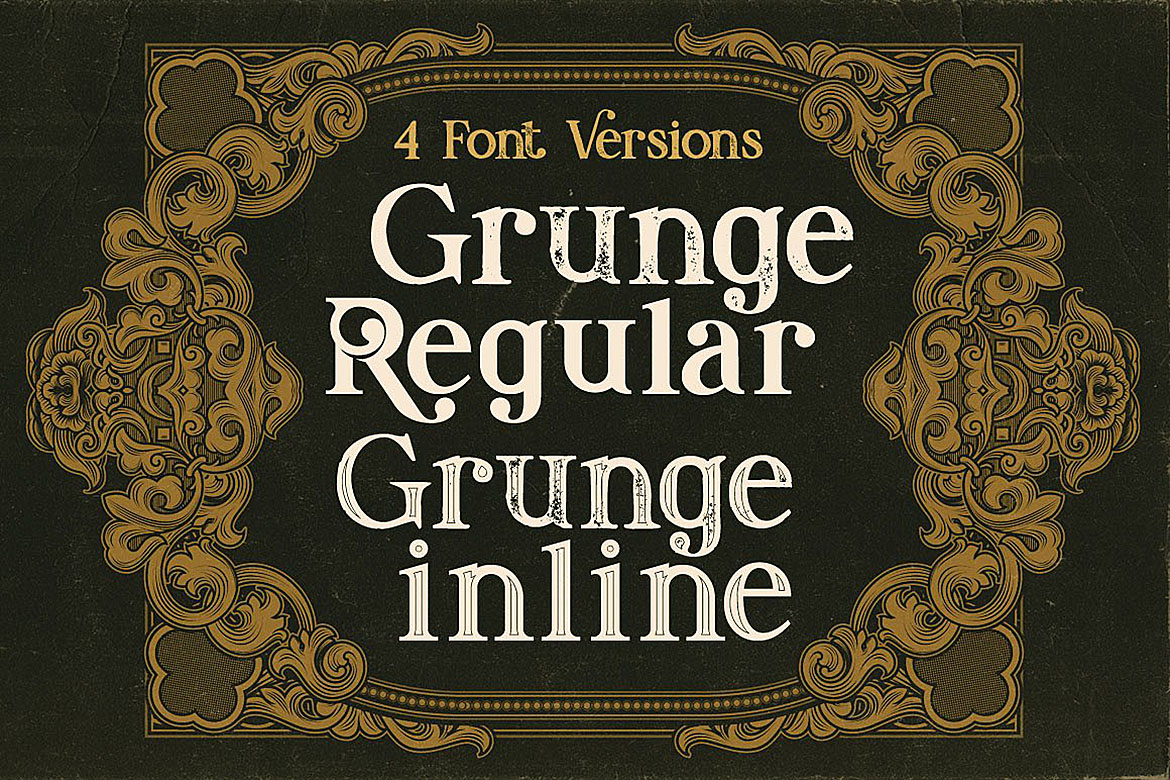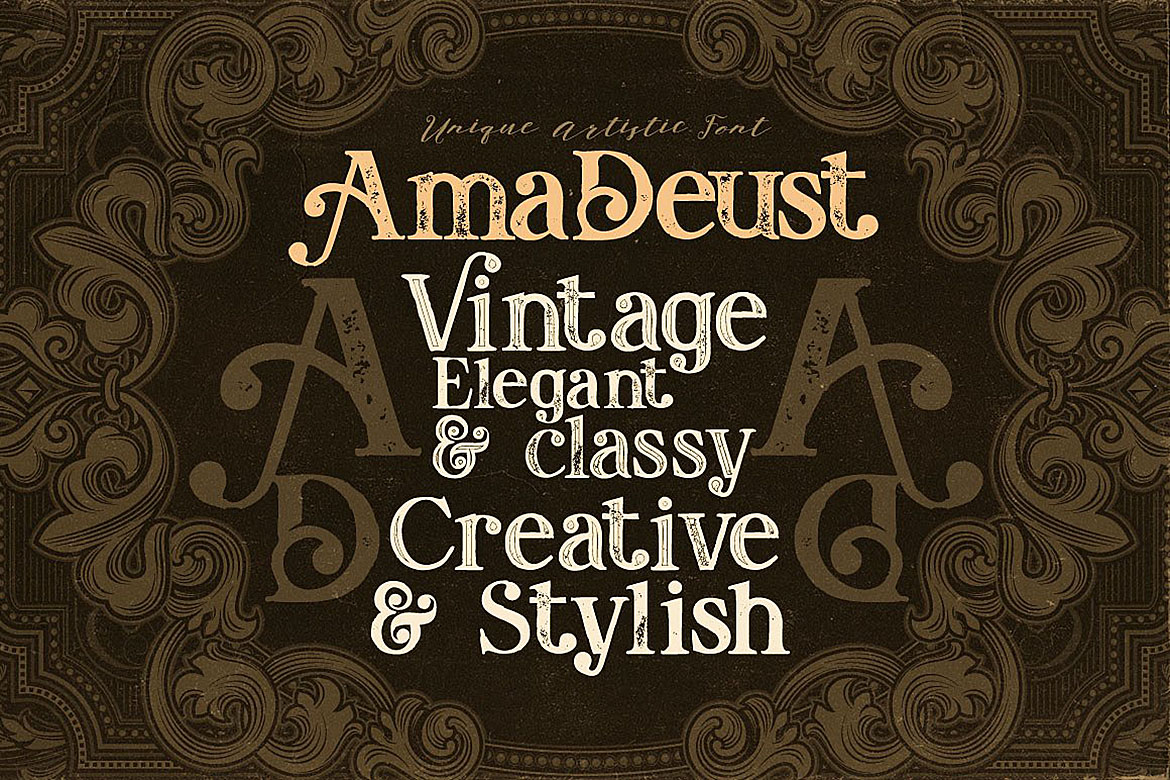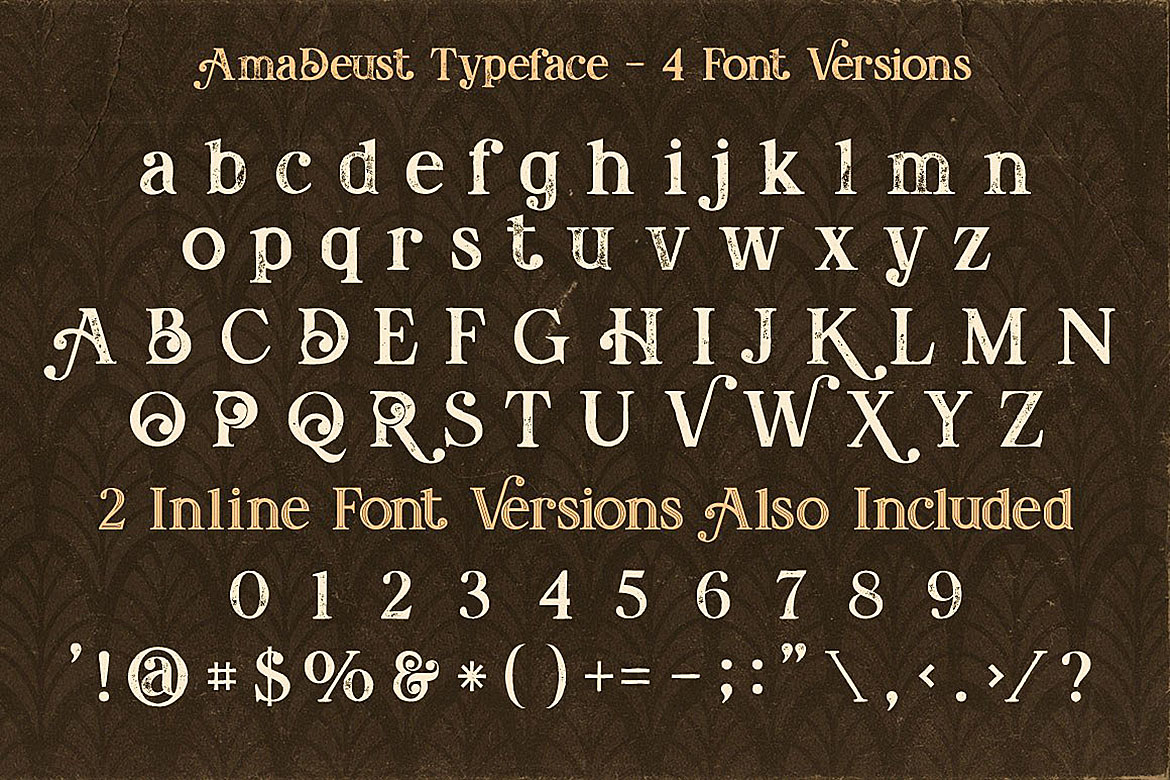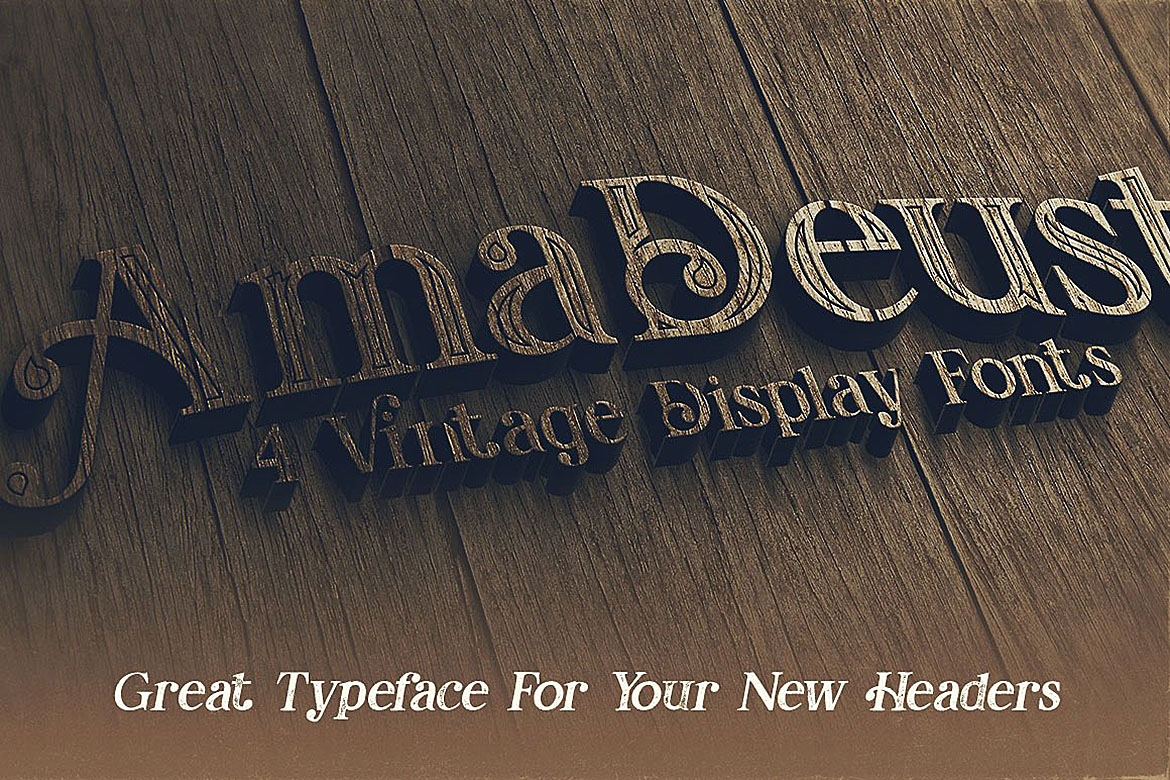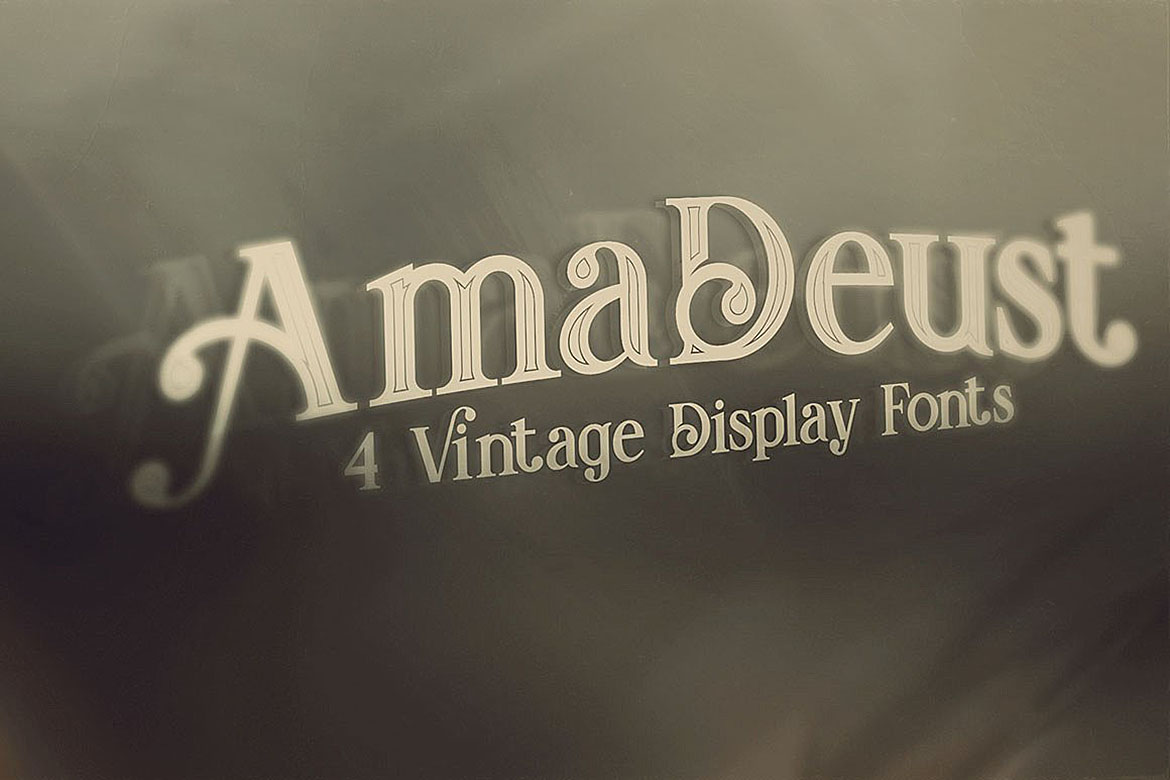
AmaDeust Font: Elevate Your Designs with Vintage Elegance
In the world of typography, few fonts capture the essence of vintage charm as effortlessly as AmaDeust. This exquisite, custom serif font is a masterpiece of ornamental design, boasting four distinct styles to suit a wide range of creative projects. Whether you’re a designer, crafter, or simply someone who appreciates the beauty of typography, AmaDeust is sure to become your go-to choice for adding a touch of luxe elegance to your work.
The Ultimate in Vintage-Inspired Typography
AmaDeust is more than just a font – it’s an experience. With its intricate details and ornate serifs, this font transports you to a bygone era of sophistication and refinement. The regular style is perfect for designs that require a touch of classic elegance, while the grunge style adds a delightfully distressed look that’s ideal for creating unique, eye-catching visuals.
Four Styles to Suit Your Creative Needs
What sets AmaDeust apart from other fonts is its versatility. This exceptional font comes in four distinct styles:
- Regular: The original AmaDeust font, characterized by its clean, elegant lines and ornate serifs.
- Grunge: A distressed version of the regular style, with a worn, vintage look that’s perfect for adding texture to your designs.
- Inline: A stylish inline version of the font, featuring delicate lines that add a touch of whimsy to your text.
- Inline Grunge: A combination of the inline and grunge styles, offering a beautifully distressed, vintage-inspired look.
Ideal for Special Event Designs and Creative Projects
AmaDeust is the perfect choice for designers and crafters working on special event designs, such as:
- Event posters and flyers
- Custom party decorations and favors
- Branding and packaging for luxury products
This font’s luxe appearance also makes it suitable for a wide range of creative projects, including:
- Logo design and branding
- Infographics and presentations
- Art and craft projects
Why Choose AmaDeust Font?
With so many fonts available, why choose AmaDeust? Here are just a few reasons why this exceptional font stands out:
- Unique and ornamental: AmaDeust’s intricate details and ornate serifs make it a truly one-of-a-kind font.
- Versatile: With four distinct styles, AmaDeust can be used for a wide range of creative projects and designs.
- Elegant and sophisticated: This font’s luxe appearance makes it perfect for high-end designs and special events.
- Easy to use: AmaDeust is a custom serif font that’s easy to incorporate into your designs, even for those with limited typography experience.
AmaDeust Font is a game-changer for designers and crafters seeking to add a touch of vintage elegance to their work. With its four distinct styles, ornate serifs, and luxe appearance, this exceptional font is sure to become a staple in your design toolkit. Whether you’re working on special event designs, creative projects, or simply looking to elevate your typography skills, AmaDeust is the ultimate choice for those who appreciate the beauty of vintage-inspired typography.